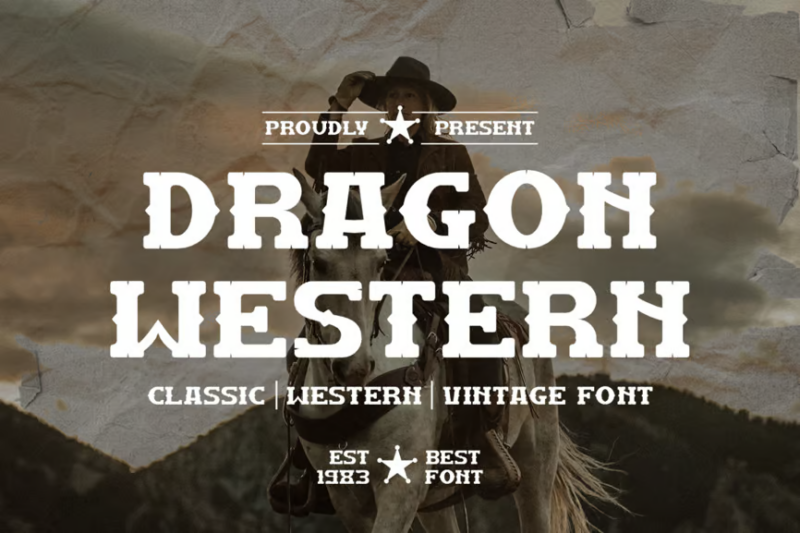
There’s something uniquely captivating about Western fonts. These aren’t just typefaces – they’re visual storytellers that transport us straight to the dusty streets of old frontier towns and the rugged landscapes of the American West.
Whether you’re designing for a local saloon, crafting authentic ranch branding, or just wanting to add that perfect touch of Western charm to your next project, choosing the right font can make all the difference. In 2026, Western fonts are seeing a remarkable revival, bringing that timeless frontier spirit to modern design.
The “Most Wanted” Western Fonts
The Western Gold
The Western Gold is a decorative sans-serif font that exudes vintage charm. Its bold, chunky letterforms are perfect for creating eye-catching headlines and logos with a classic Western flair. The font’s rugged edges and slight distressing add authenticity to any Wild West-inspired design.
Western Brother
Western Brother is a decorative font that captures the essence of the Old West. Its strong, angular letterforms are reminiscent of saloon signs and wanted posters. This font is ideal for creating impactful designs with a rustic, frontier-inspired aesthetic.
Western Groove
Western Groove is a serif font that combines cowboy charm with a touch of rustic elegance. Its smooth curves and subtle serifs create a more refined Western look, making it versatile for both headlines and body text in cowboy-themed designs.
Western Sheriff
Western Sheriff is a bold, serif display font that commands attention. Its strong, blocky letterforms evoke the authority of a sheriff’s badge, making it perfect for headlines and logos in Western-themed projects. The font’s sturdy appearance adds a sense of reliability to any design.
Western Sage
Western Sage is a serif font that captures the wild spirit of the West. Its slightly irregular characters and rough edges give it an authentic, hand-crafted feel. This font is excellent for creating designs that need a touch of frontier ruggedness.
Groovy Western
Groovy Western is a bold, slab serif font that puts a funky twist on the traditional Western style. Its thick, chunky letterforms and playful curves make it stand out in any design. This font is perfect for projects that want to blend retro and Western aesthetics.
Western Grit
Western Grit is a distressed serif font that embodies the rugged spirit of the Old West. Its weathered appearance adds character and authenticity to designs, making it ideal for vintage-inspired projects. The font’s gritty texture brings a sense of history and worn charm to any layout.
Western Retro
Western Retro is a sans-serif font with a vintage watermark effect. Its clean lines and subtle distressing create a perfect balance between modern and retro styles. This font is versatile enough for both headlines and body text in Western-themed designs with a contemporary twist.
Desert Western
Desert Western is a serif display font that captures the essence of the arid Wild West. Its bold, angular letterforms evoke images of sun-baked landscapes and frontier towns. This font is excellent for creating impactful headlines and logos with a strong Western character.
Western Rome
Western Rome is a decorative serif font that blends Western and blackletter styles. Its ornate characters and vintage aesthetic make it perfect for creating elegant, old-world designs with a frontier twist. This font excels in projects that require a touch of classic sophistication.
Mogathe
Mogathe is a unique font that combines sans-serif, script, and handwritten styles with Western flair. Its versatile character set allows for creative mixing and matching within designs. This font is ideal for projects that need a hand-crafted feel with a touch of Western charm.
Esteban
Esteban is a decorative serif font that brings a grungy edge to Western typography. Its distressed appearance and bold letterforms create a rugged, weathered look. This font is perfect for designs that need to convey a sense of adventure and frontier spirit.
Smora
Smora is a modern take on the classic Western serif font. Its clean lines and subtle decorative elements make it suitable for contemporary logo designs and branding projects. This font strikes a balance between traditional Western style and modern aesthetics.
Dezieg
Dezieg is a Western-inspired serif typeface that exudes frontier charm. Its bold, chunky letterforms and subtle irregularities give it an authentic, hand-crafted feel. This font is excellent for creating eye-catching headlines and logos with a strong Western character.
Remember, choosing a Western font isn’t just about picking the most decorative option. It’s about finding the perfect balance between character and functionality, between historical authenticity and modern usability.
So saddle up and give some of these Western fonts a try in your next design project. You might just find they’re exactly what you need to give your work that perfect touch of frontier spirit.